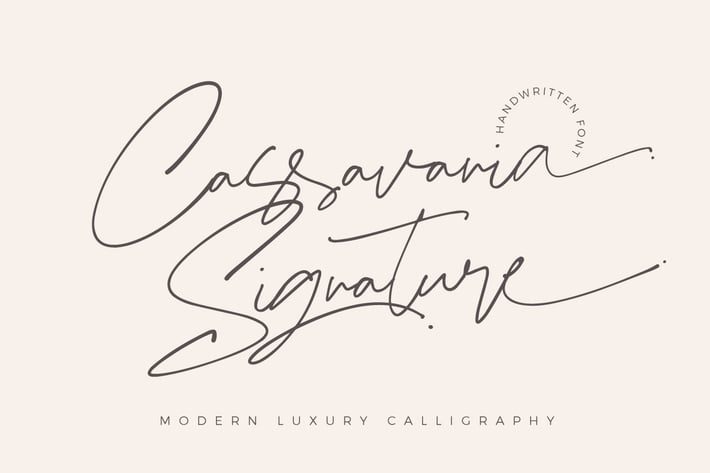
Cassavania Signature Font Elegant
Cassavania | Beauty Font Elegant with a calligraphy style, So beautiful on invitation like greeting cards, branding materials, business cards, quotes, posters, and more!
Hundred of glyphs